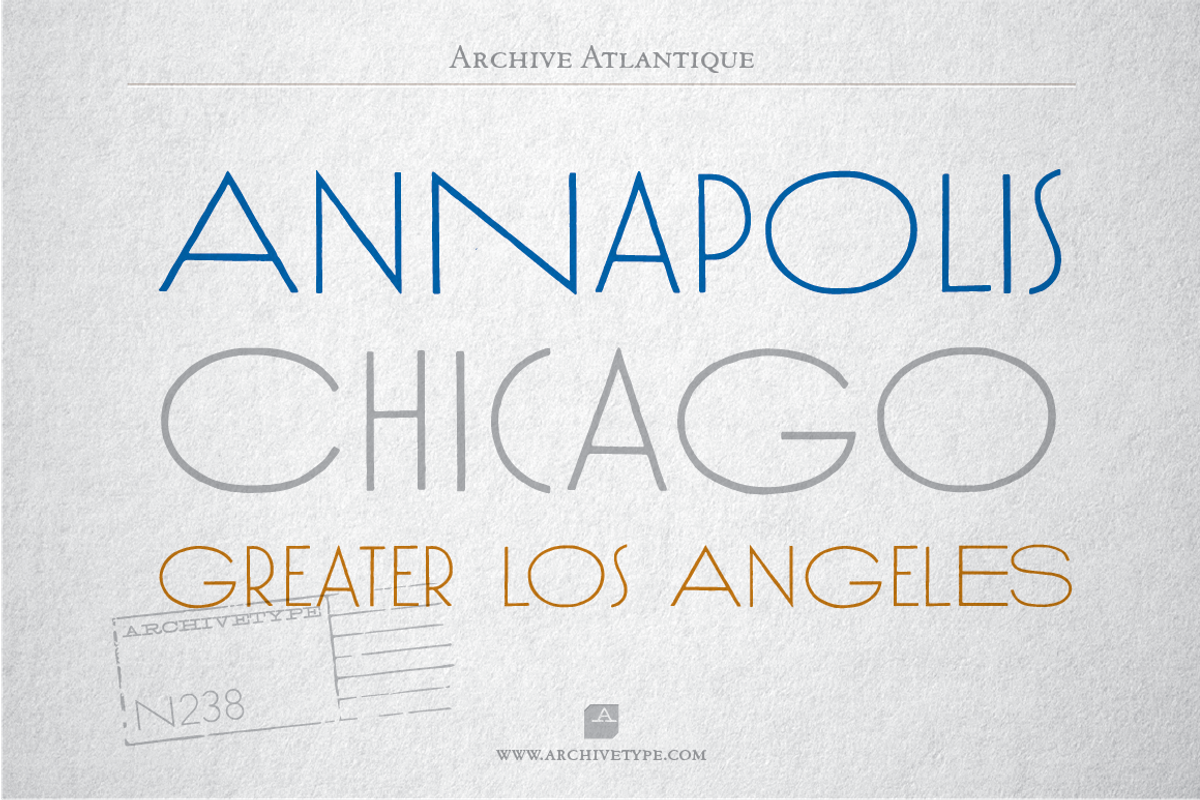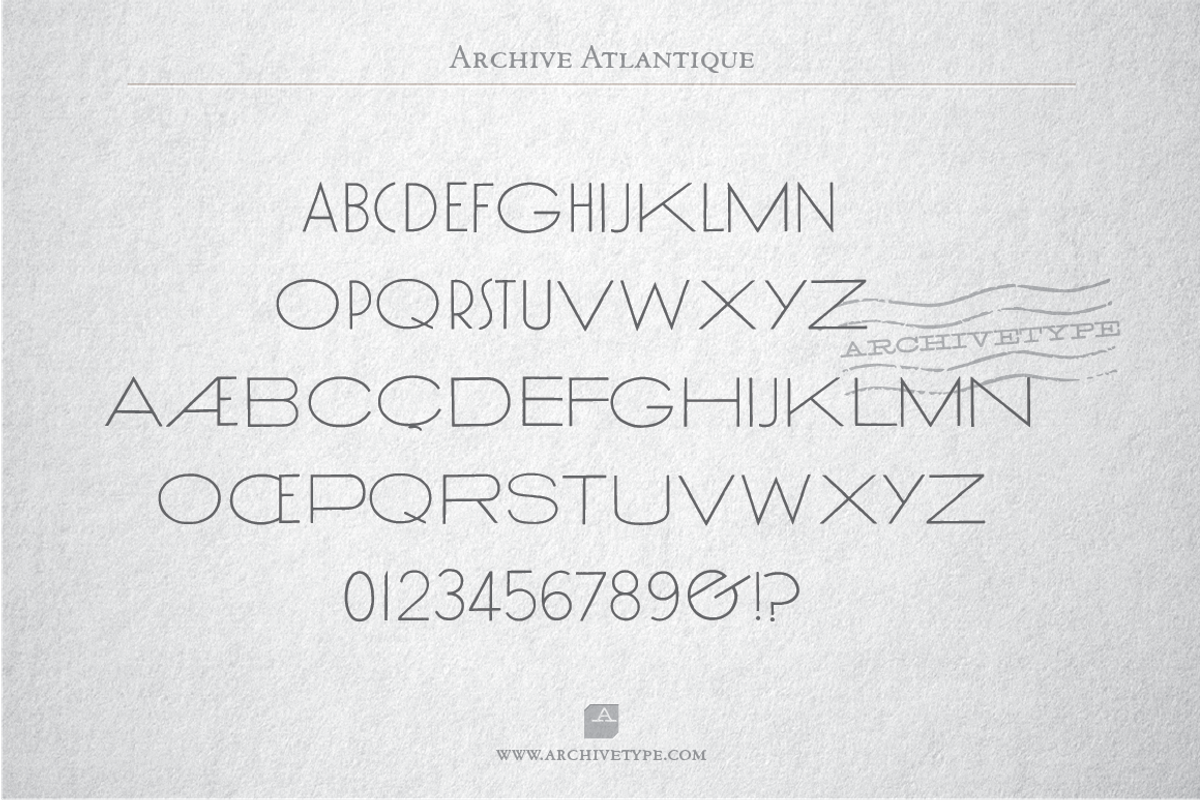
Archive Atlantique
Archive Atlantique by Archive Type Fonts is a font selected for branding, posters, packaging, typography.
- In order to preserve the original feel of typefaces, no additional characters were added to originals, therefore, most of the fonts consist
- Upper case letters, lower case letters, numerals and basic punctuation.
Why Archive Atlantique is worth a look
Archive Atlantique by Archive Type Fonts fits naturally into Branding, posters, packaging, typography.